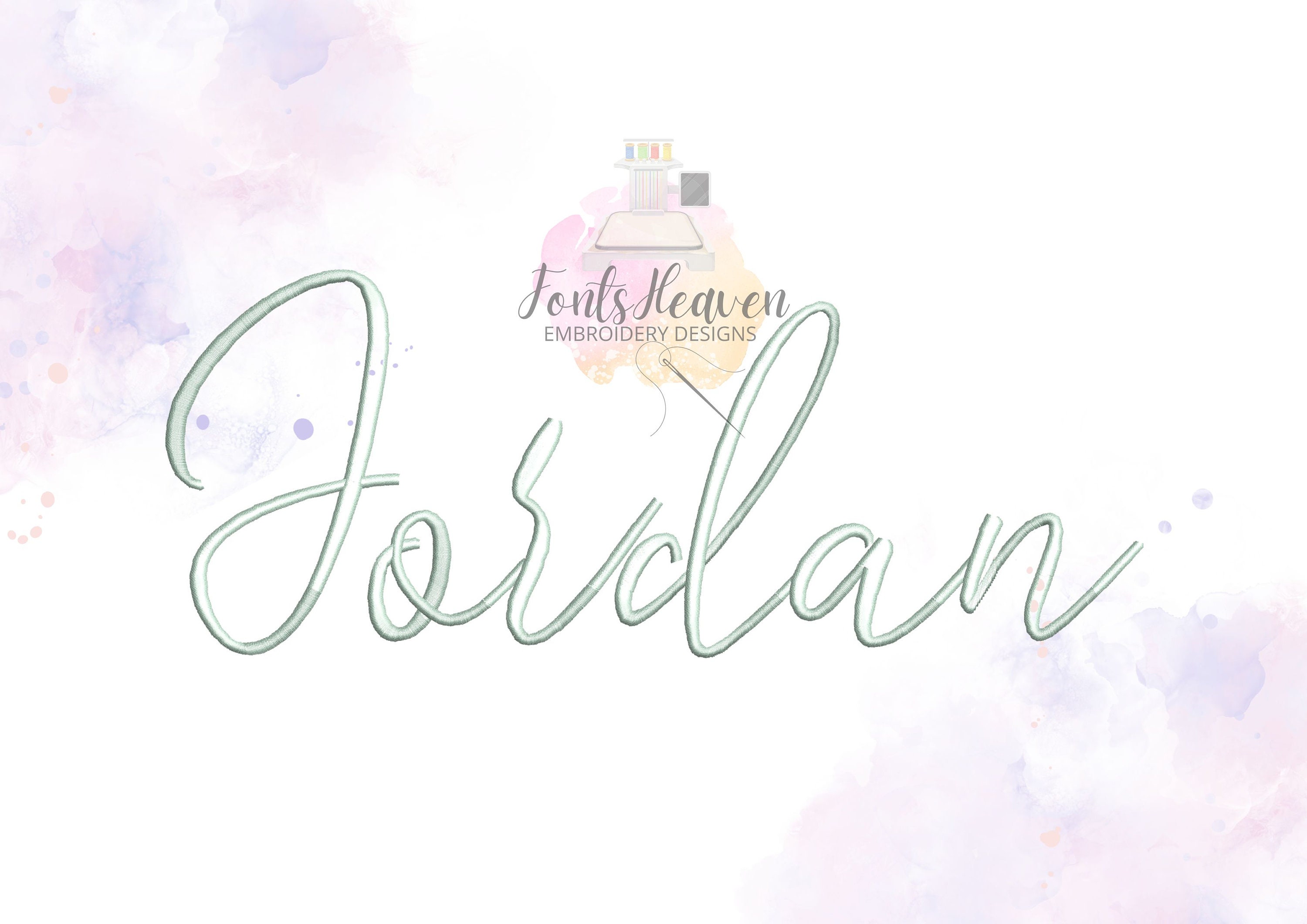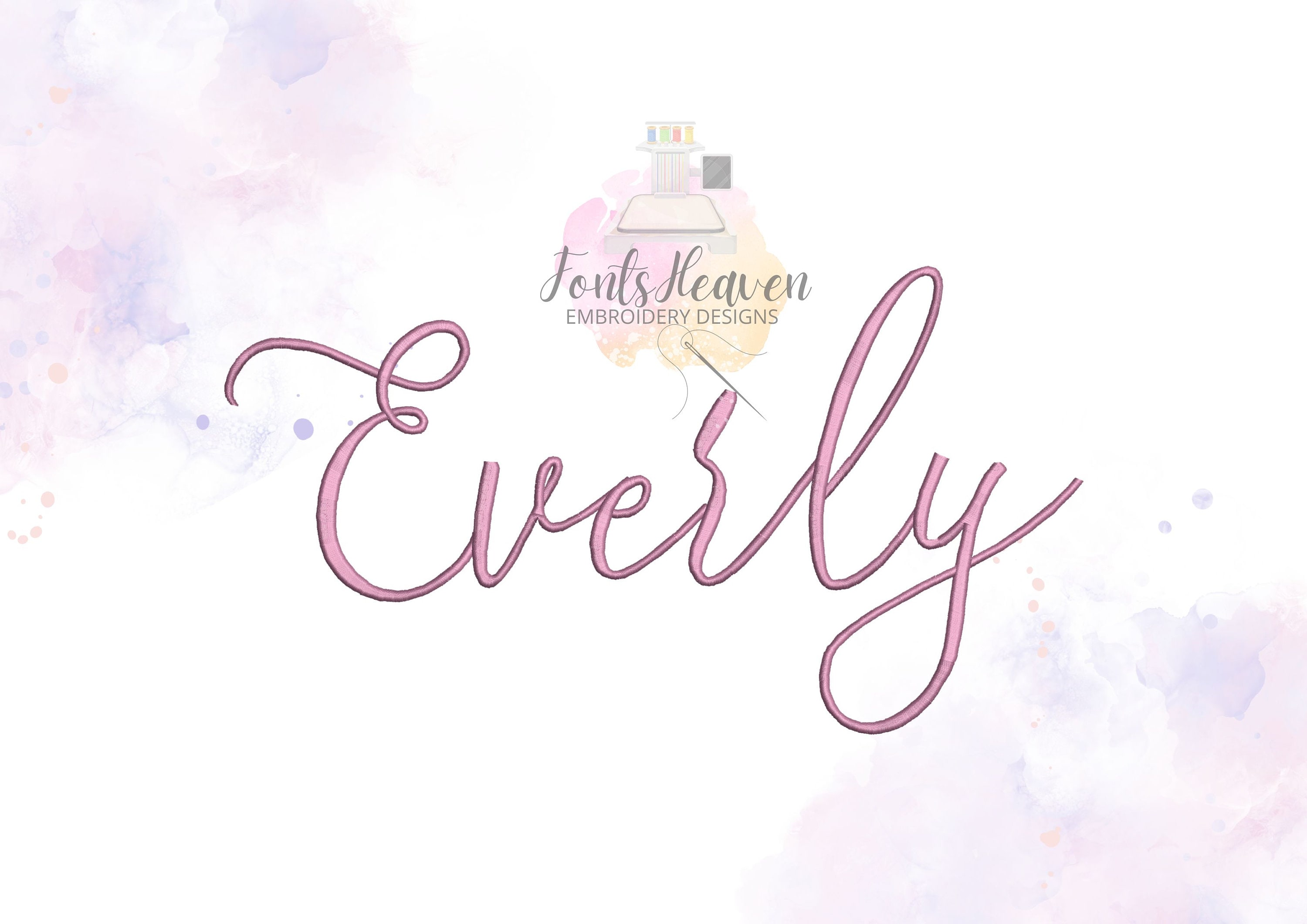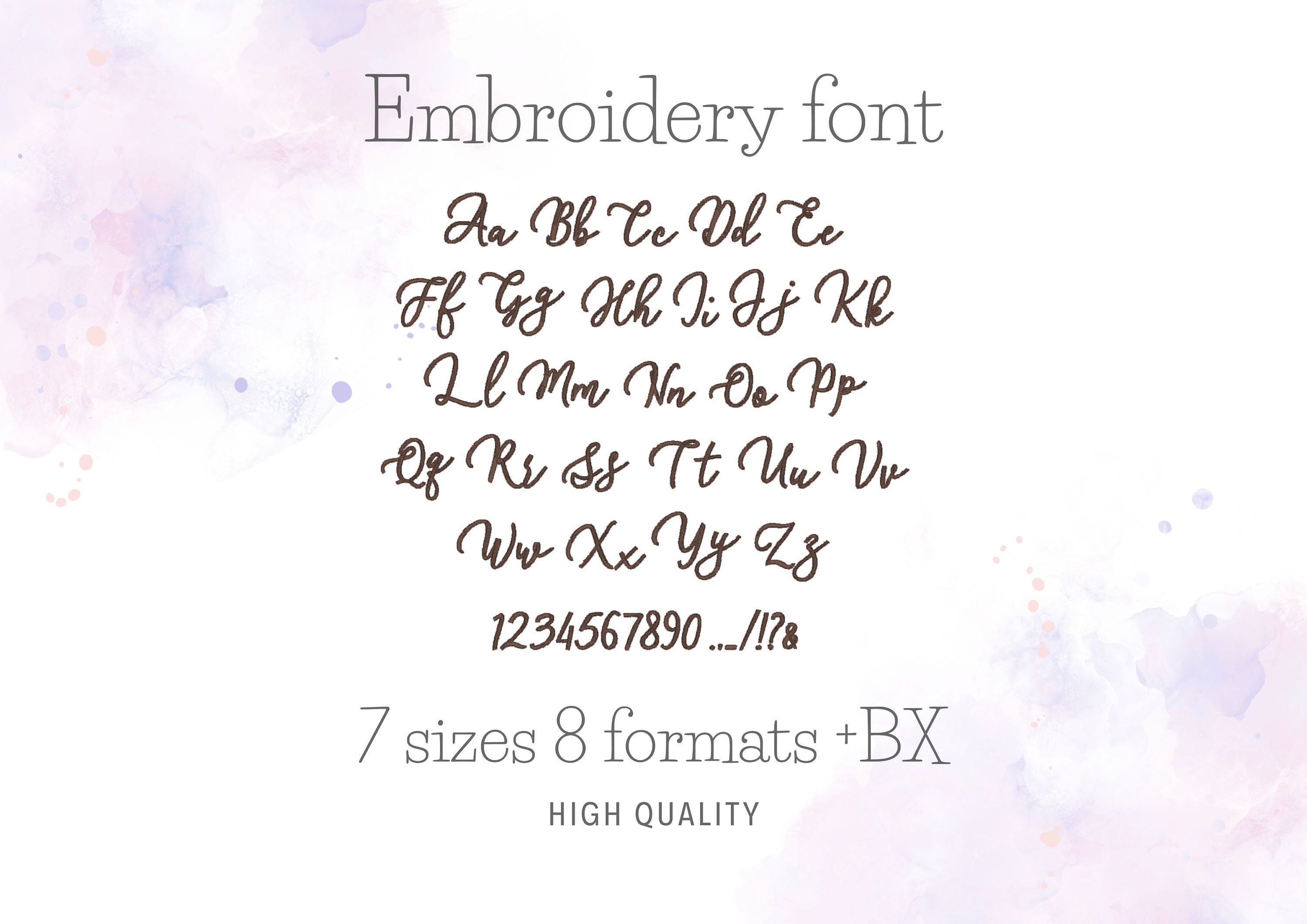
Amy wifey sweatshirt script hand written, cursive Font alphabet machine embroidery designs 1.1 thru 4.1 inches , monogram BX
Uppercase and lowercase letters